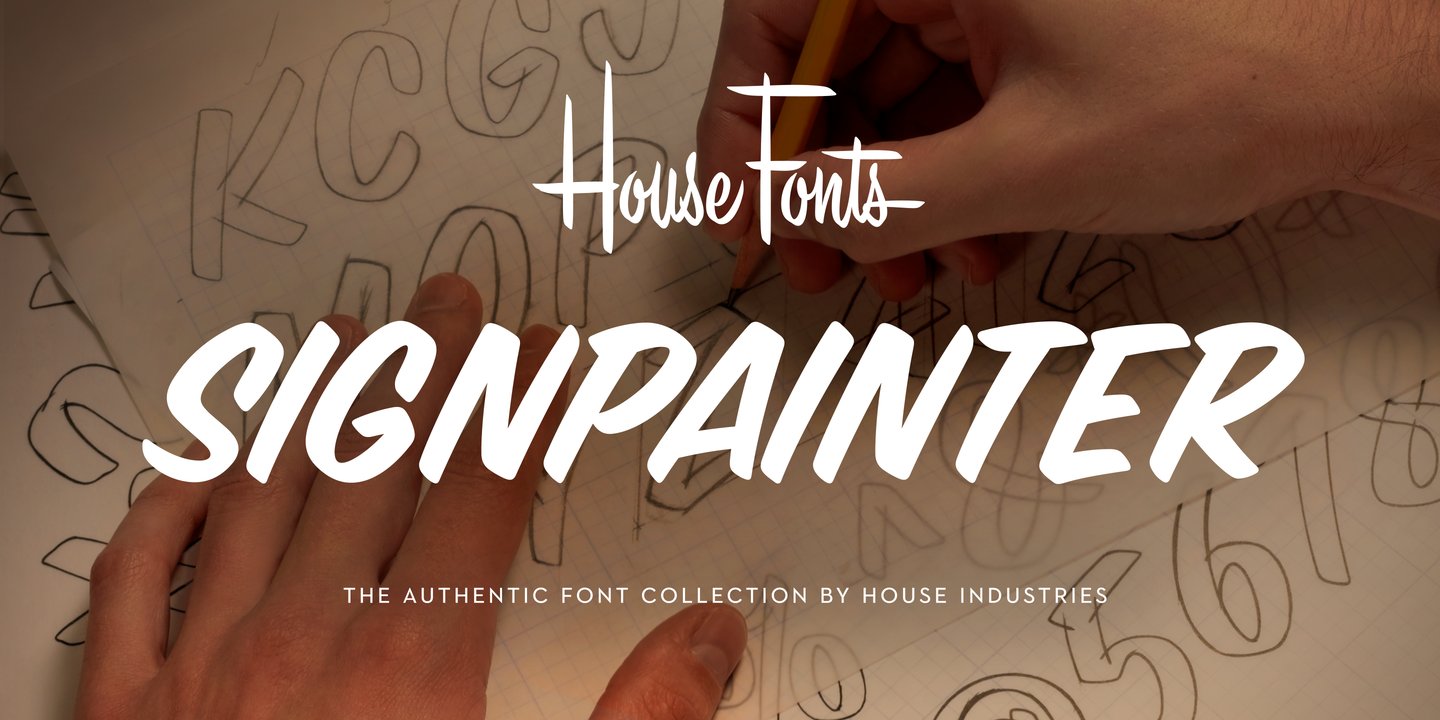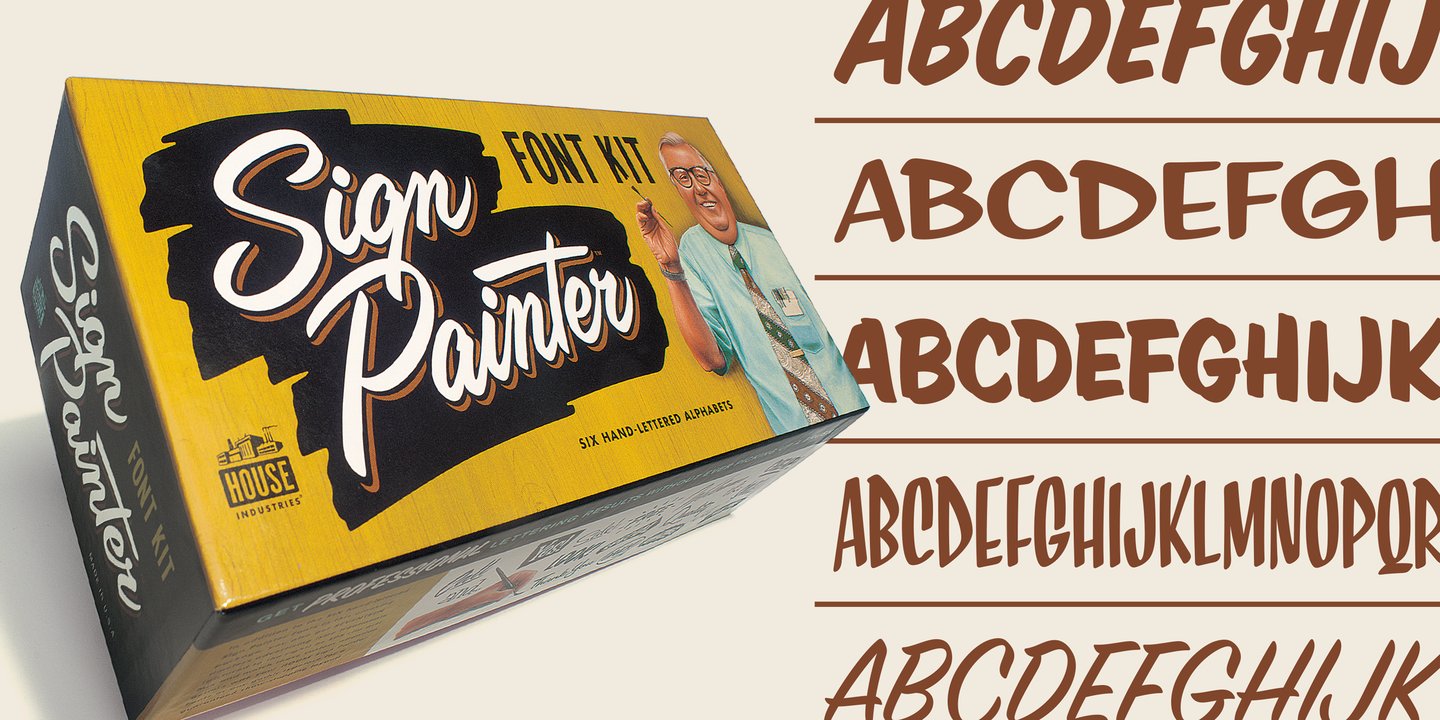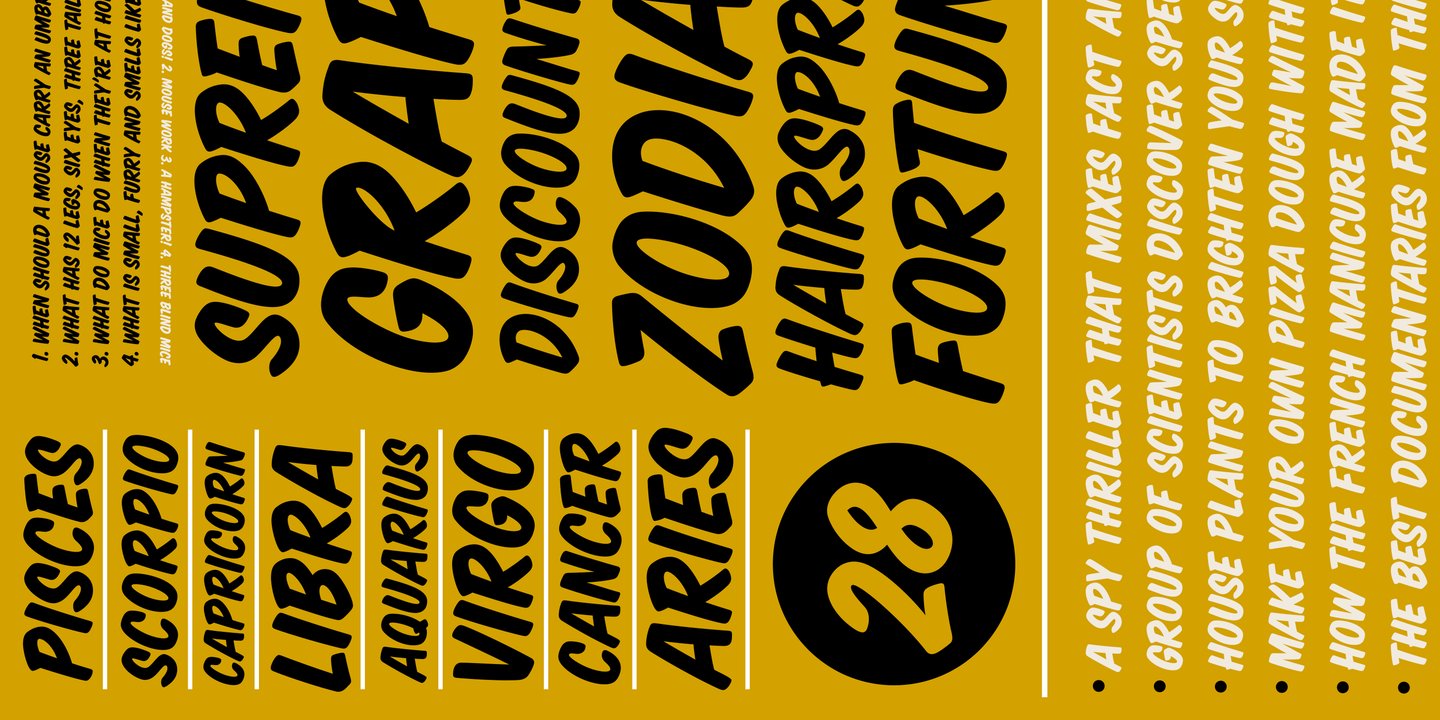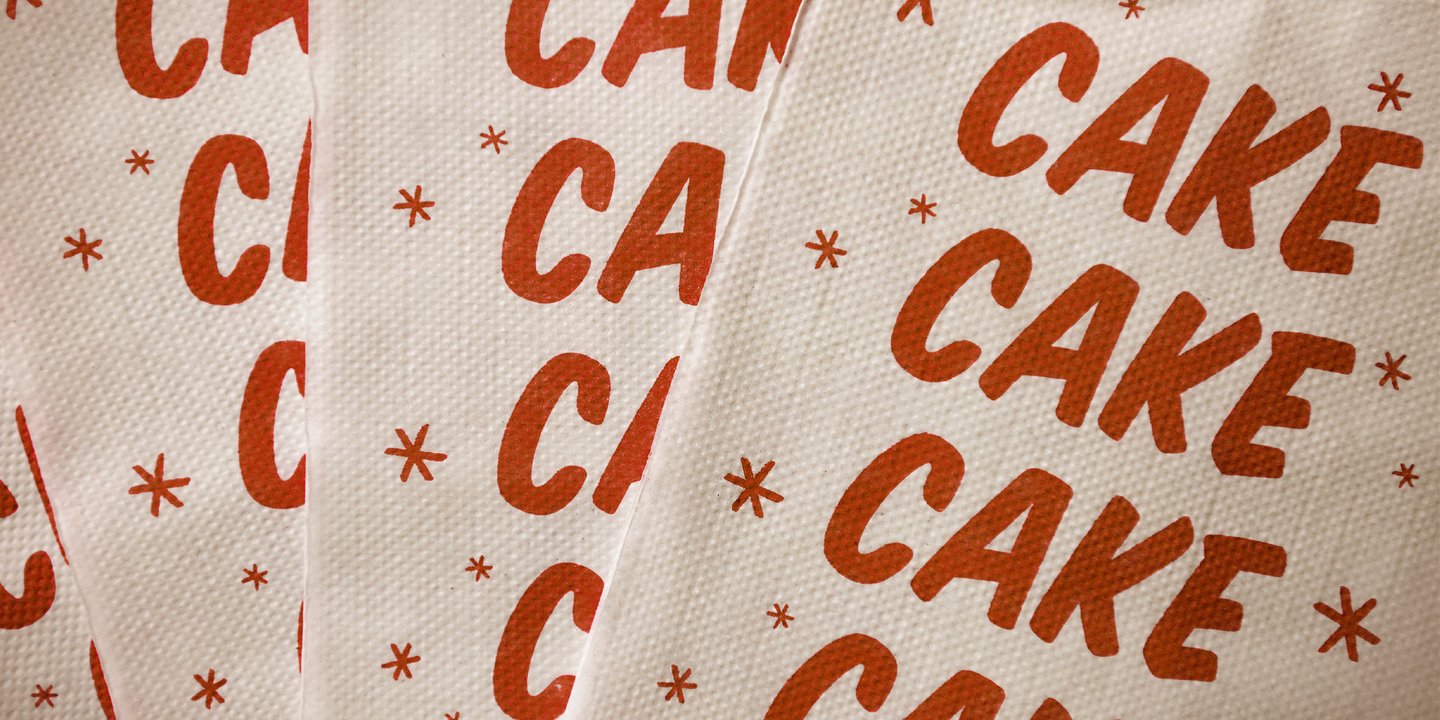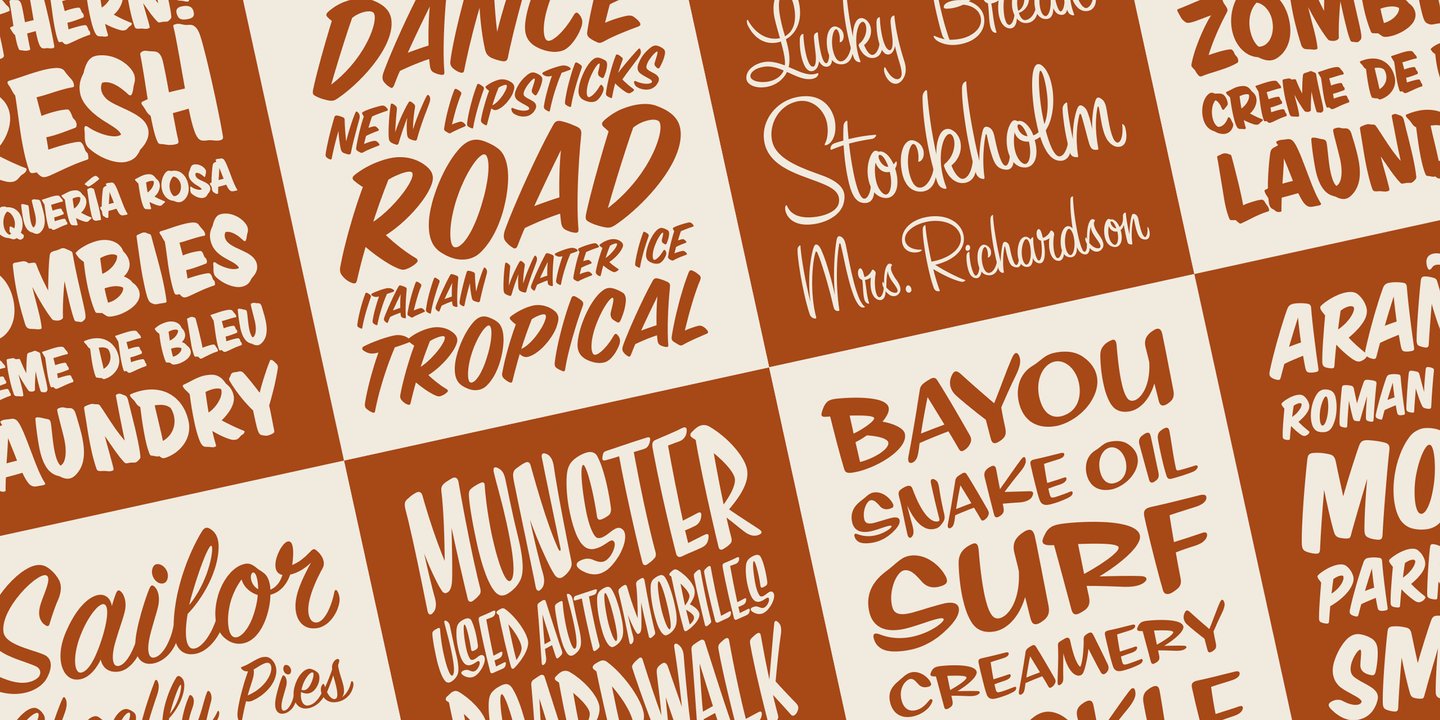
About Sign Painter Font Family For decades, the handletterer’s craft has been indispensable to the advertising and design trades. As prevailing tastes changed and new technologies emerged, commercial art saw the fateful demise of this lost skill.
Now, House Industries is proud to offer the Sign Painter font kit, a collection of six timeless display typefaces along with an assortment of eye-catching advertising type treatments in font format. Like all good subversives, House Industries hides in plain sight while amplifying the look, feel and style of the world’s most interesting brands, products and people. Based in Delaware, visually influencing the world. Designers: Ken BarberPublisher: House IndustriesFoundry: House IndustriesDesign Owner: House IndustriesMyFonts debut: Sep 2, 2021 Sign Painter